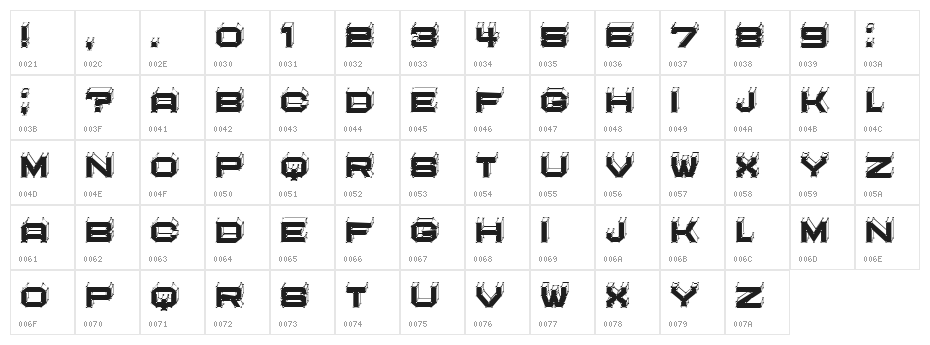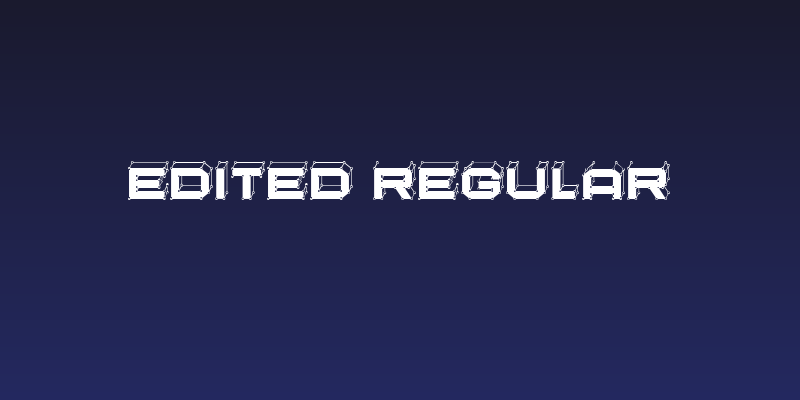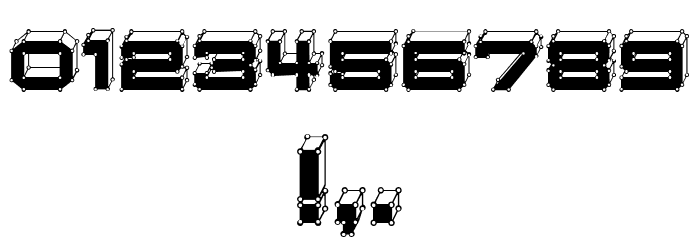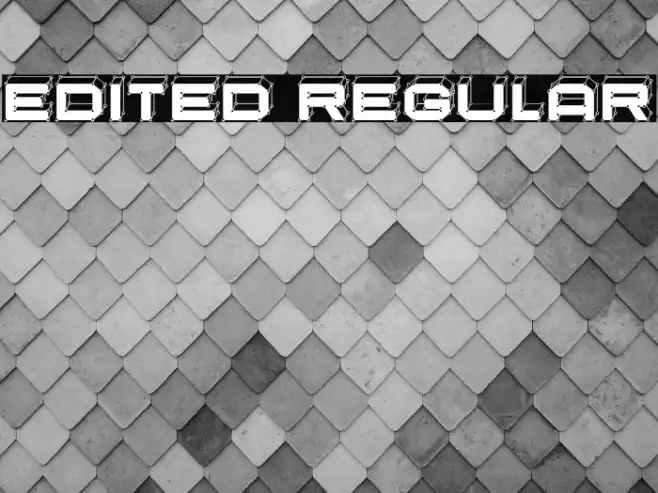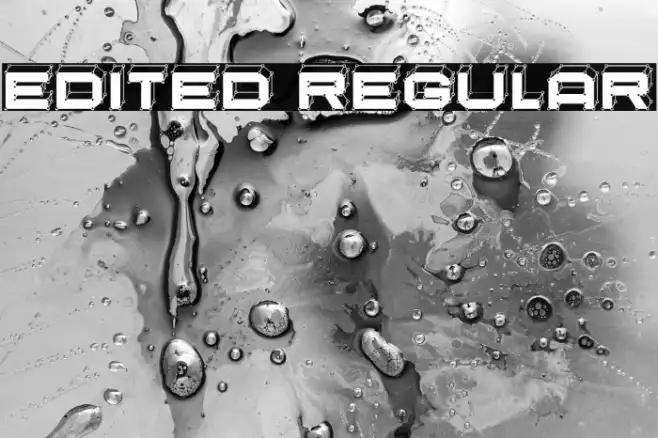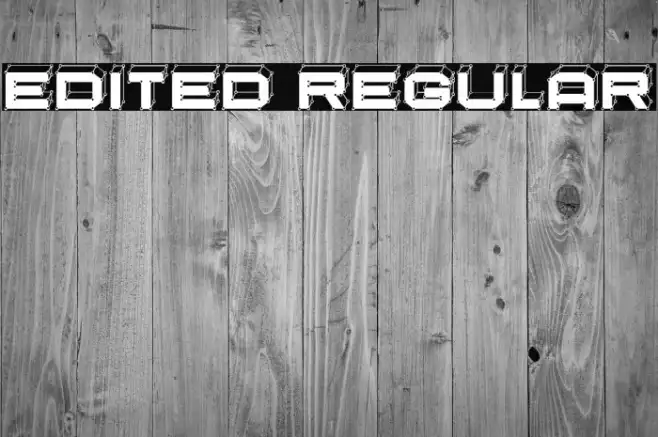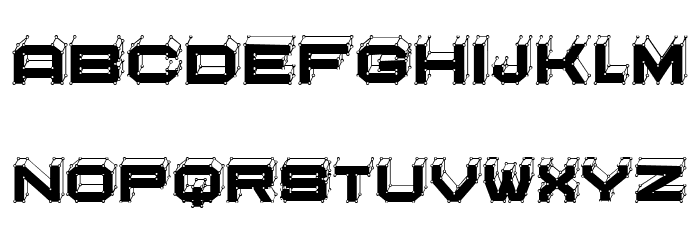
Edited Regular Font
Edited Regular Description
This font features a bold, geometric design with a futuristic and industrial aesthetic. The characters are constructed with sharp angles and a three-dimensional effect, giving them a distinct, mechanical appearance. The uppercase and lowercase letters maintain a consistent style, with uniform stroke thickness and angular edges. The numerals and special characters follow the same design principles, ensuring a cohesive look across all glyphs. This font's unique style makes it stand out, ideal for projects that require a modern and edgy feel.
| Overall Style | Futuristic, Industrial |
| Proposed Projects | Ideal for technology branding, video game titles, sci-fi movie posters, and industrial-themed graphic designs. |